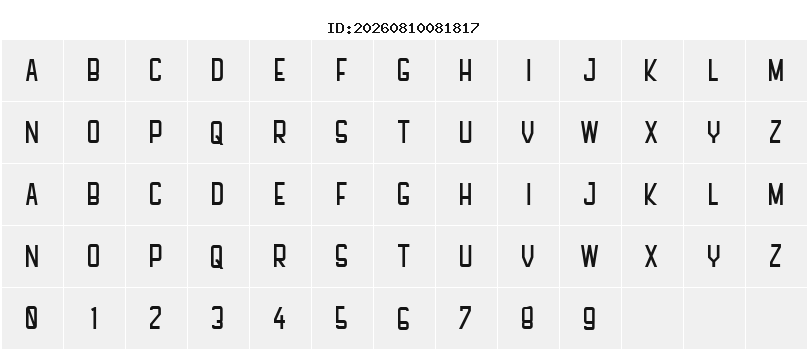
• Font Name: PFHALL
• Full Font Name: PFHALL
• Character Count: 95
• Designer: Sok Konjarski
• Manufacturer: Sok Konjarski
About PFHALL.ttf
PFHALL.ttf is a modern, elegant sans-serif font designed for ultimate readability and visual harmony. Perfect for branding, headlines, web design, and print materials.